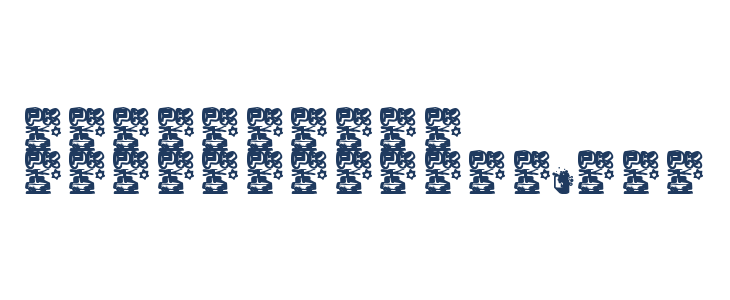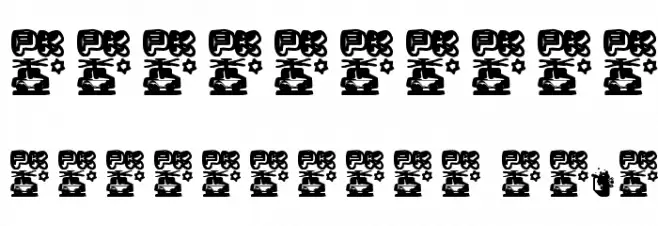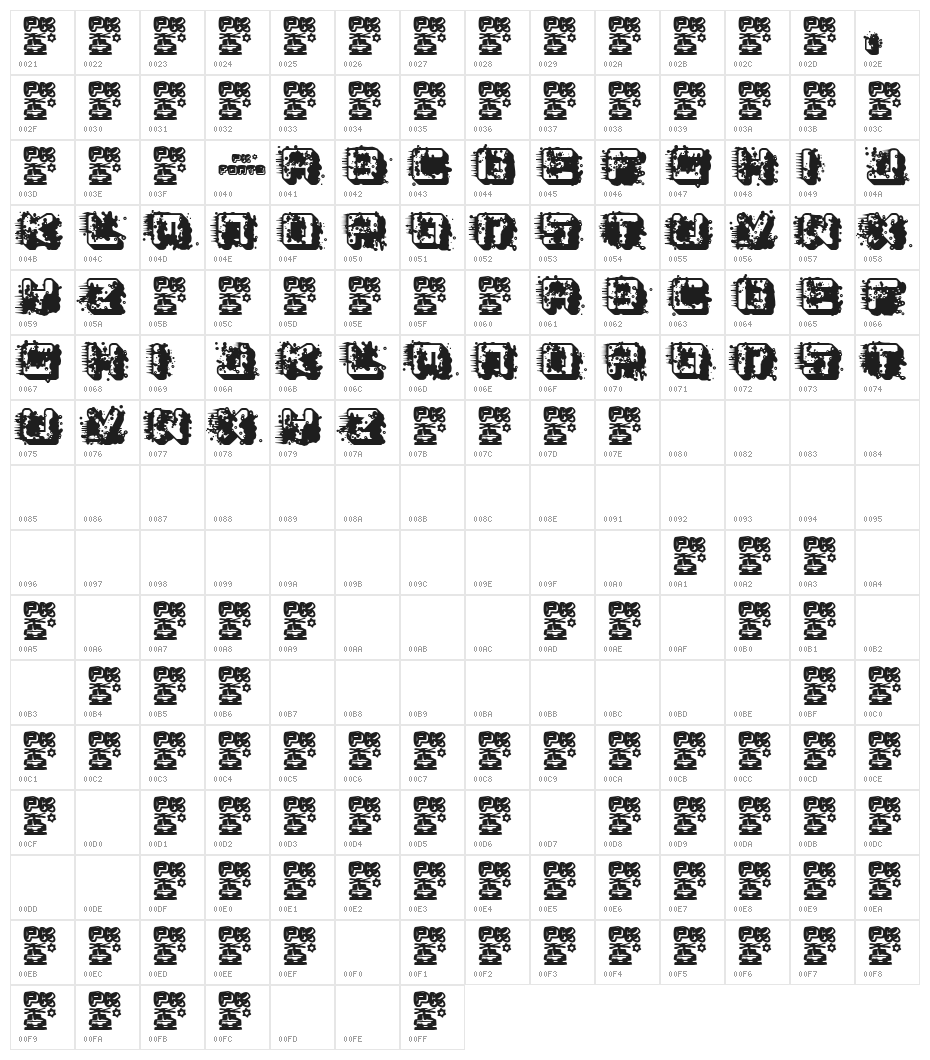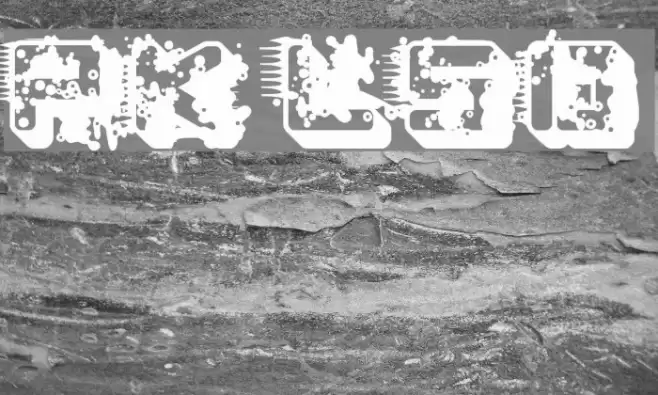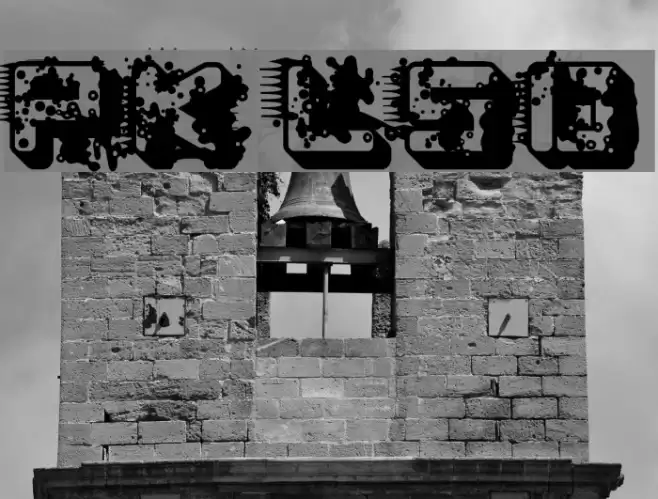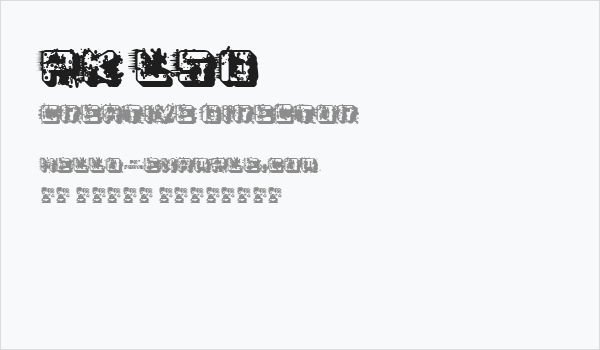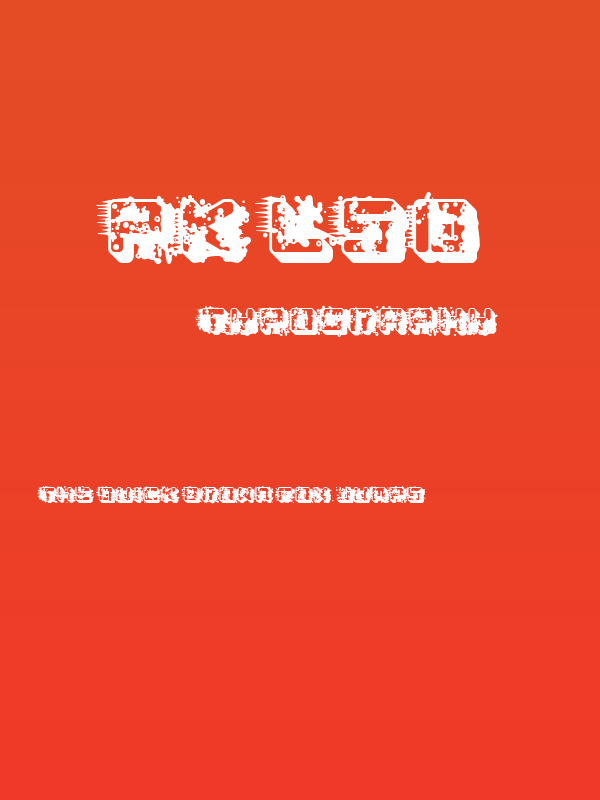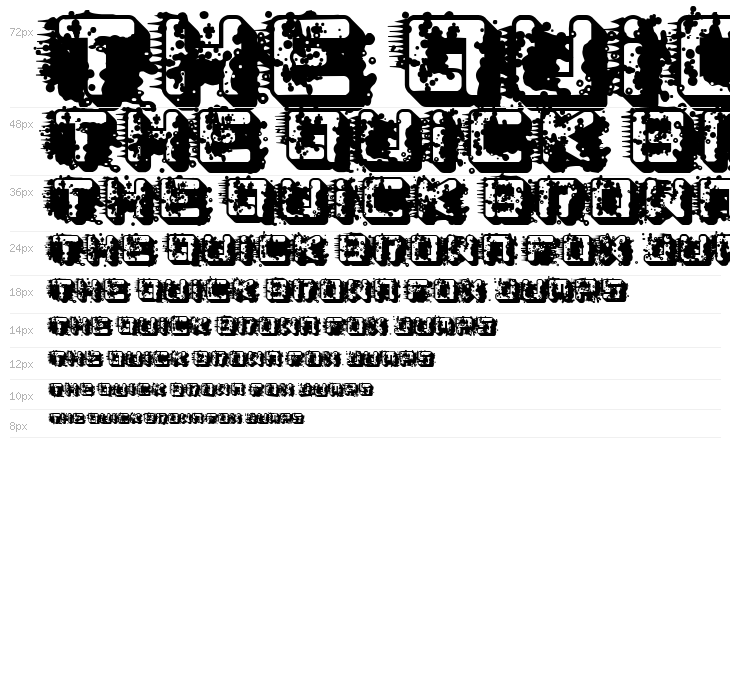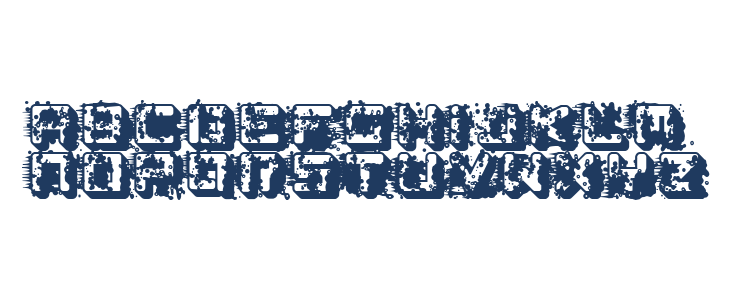
pk LSD Font
pk LSD Description
This font features a bold and grungy aesthetic, characterized by its distressed and textured appearance. Each character is heavily stylized with rough edges and a splattered effect, giving it a chaotic and energetic feel. The uppercase letters are prominent and impactful, while the lowercase letters maintain the same rugged style. The numbers and special characters follow suit, ensuring a cohesive look throughout. This font is ideal for projects that require a strong, rebellious, or edgy vibe, making it perfect for music album covers, posters, or urban-themed designs.
| Overall Style | Grunge, Urban, Edgy |
| Proposed Projects | Ideal for music album covers, posters, urban-themed designs, and rebellious branding. |